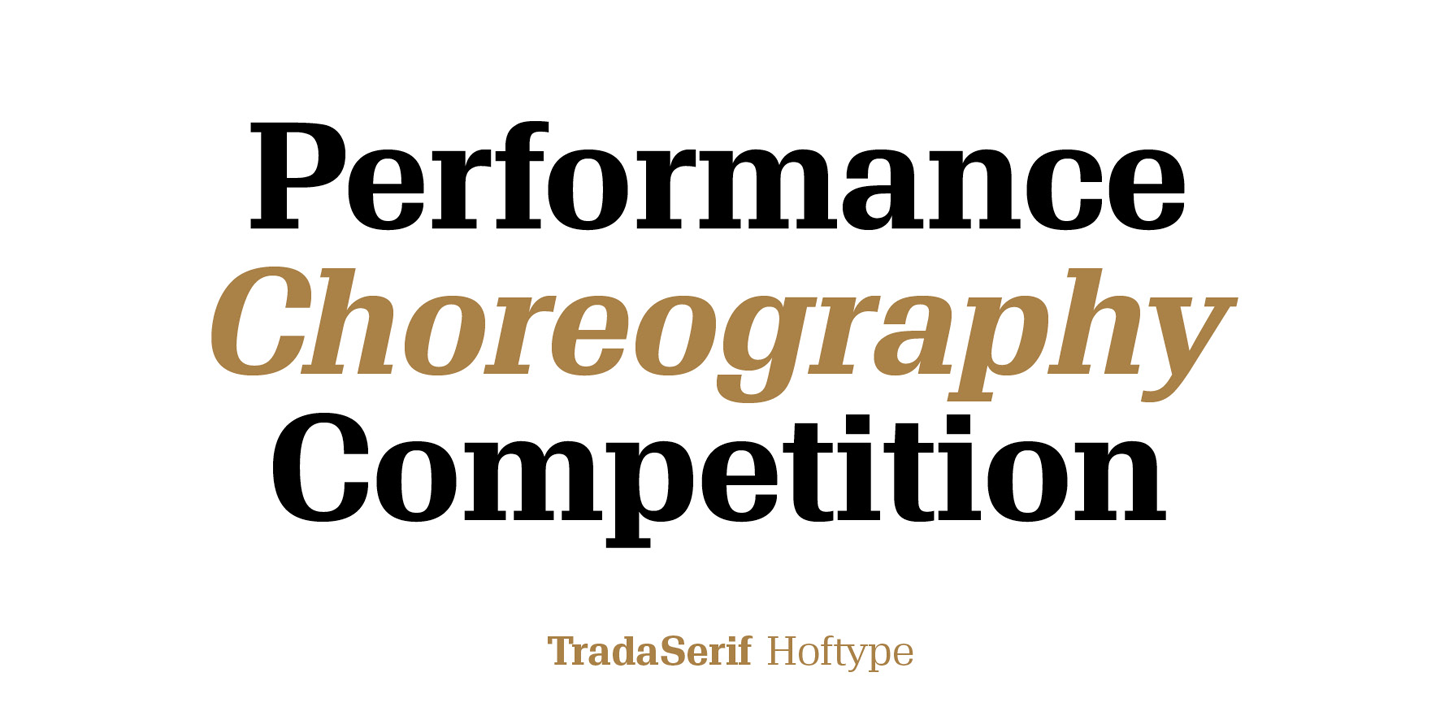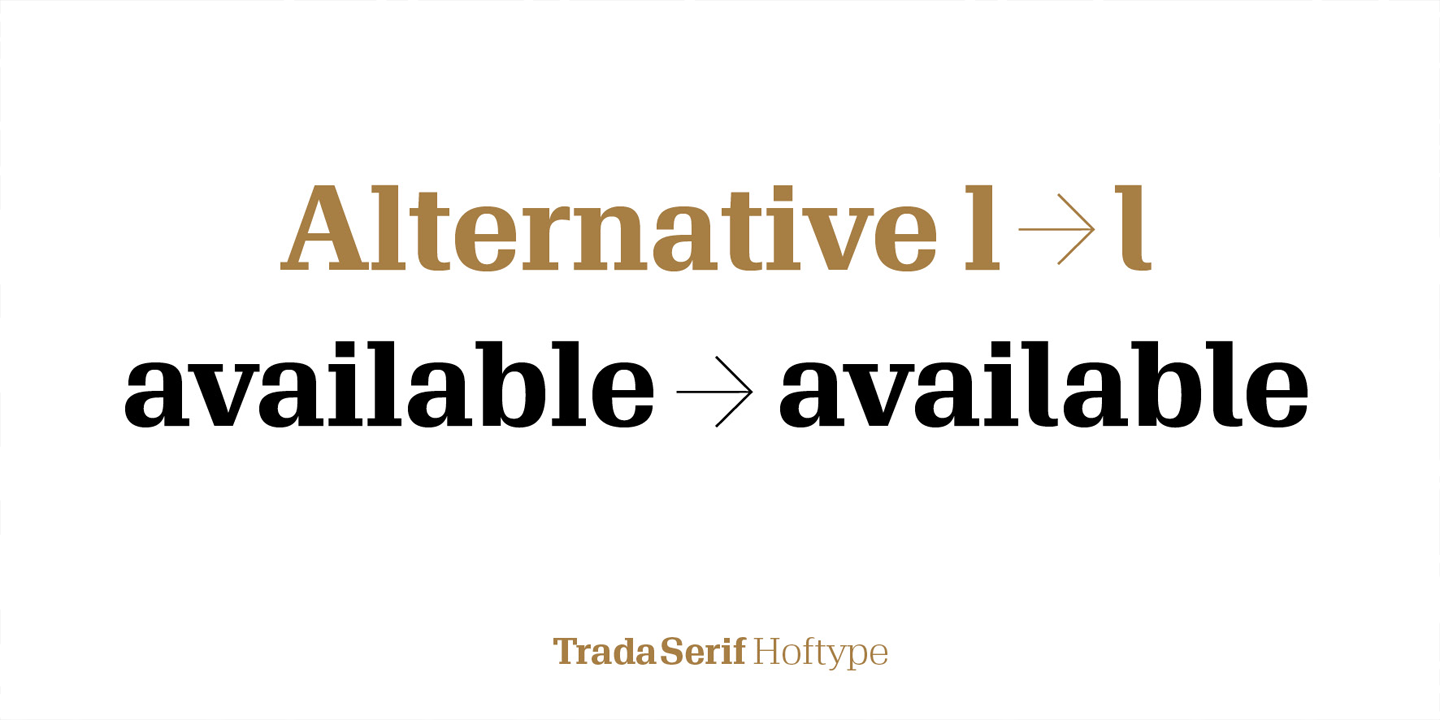
TradaSerif is a new addition to the Trada family. Crisp and clear in appearance, it preserves
the same formal spirit and the principal structural elements of TradaSans. TradaSerif offers
a wide range of styles, from tenderly thin to thundering black. It also affords excellent text qualities and
works brilliantly as a distinctive headline face.
TradaSerif consists of 20 well-tuned weights and is well-equipped for advanced typography.
It comes in OpenType format with extended support for up to 80 languages. All weights
contain small caps, ligatures, superior characters, proportional lining figures, tabular lining figures,
proportional old style figures, lining old style figures, matching currency symbols, fraction- and
scientific numerals, matching arrows, and alternate characters.